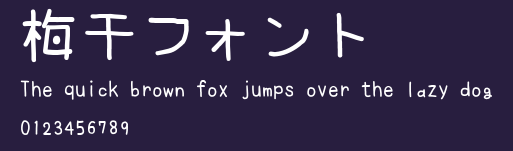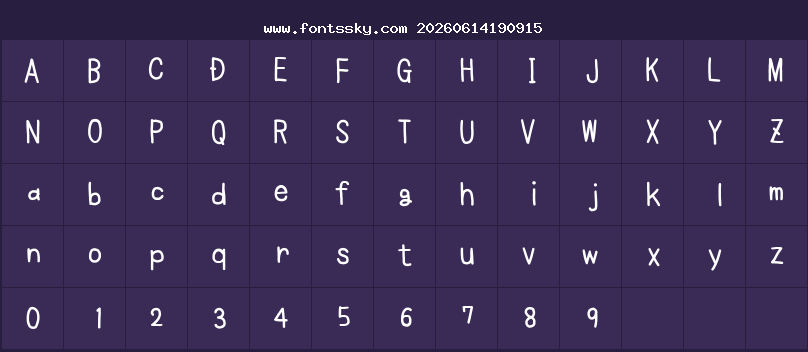
• Font Name: 梅干フォント
• Font Style: umeboshi
• Font ID: 梅干フォント
• Full Font Name: 梅干フォント
• PostScript Name: umeboshi
• Character Count: 14963
• Copyright: toga(umeboshi)
About 梅干フォント.ttf
梅干フォント.ttf is a modern, elegant sans-serif font designed for ultimate readability and visual harmony. Perfect for branding, headlines, web design, and print materials.